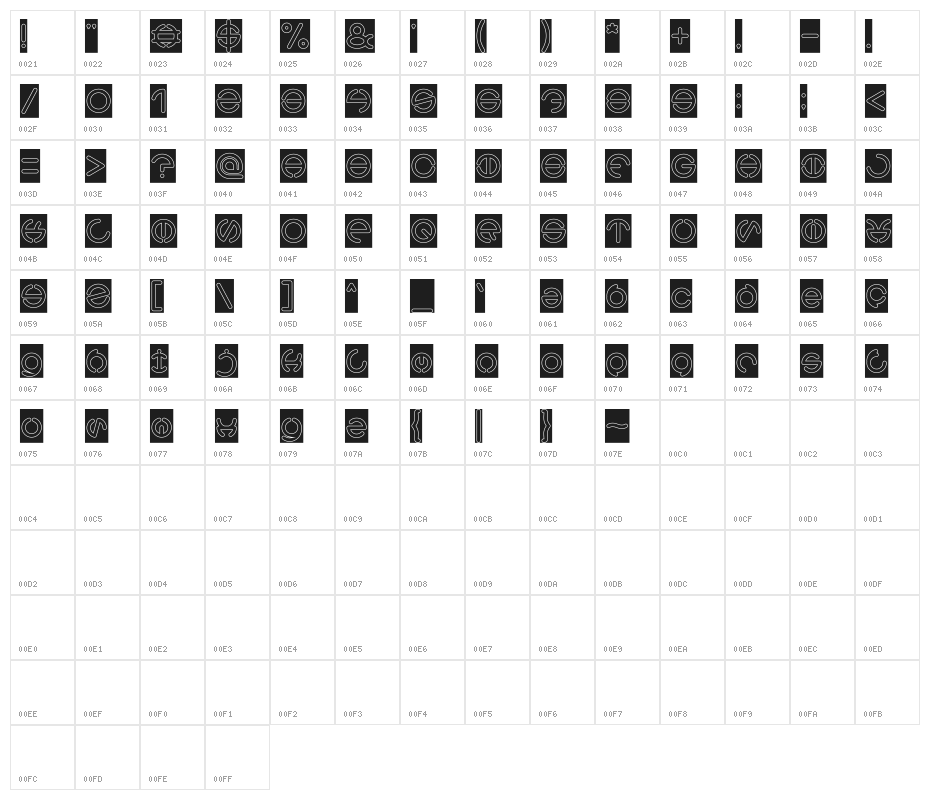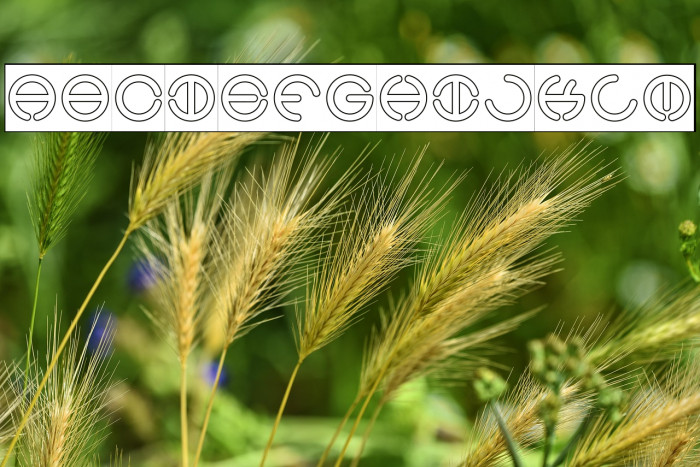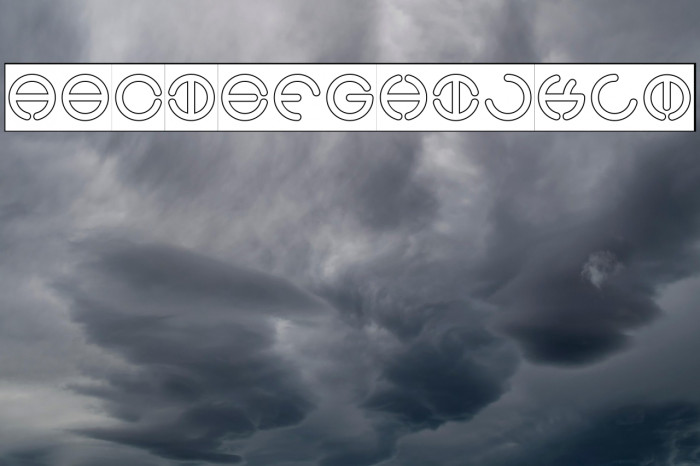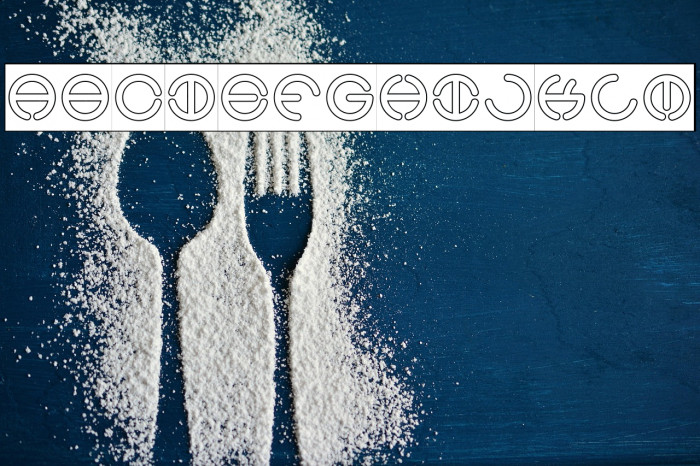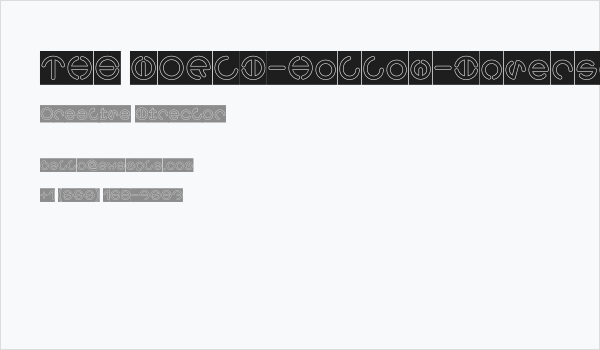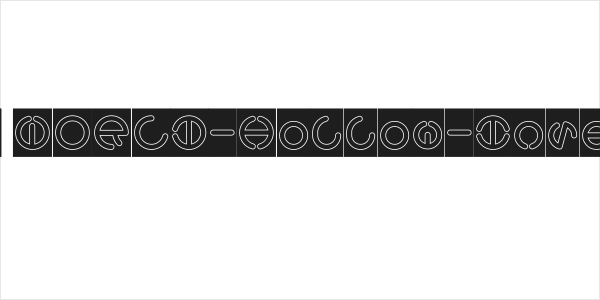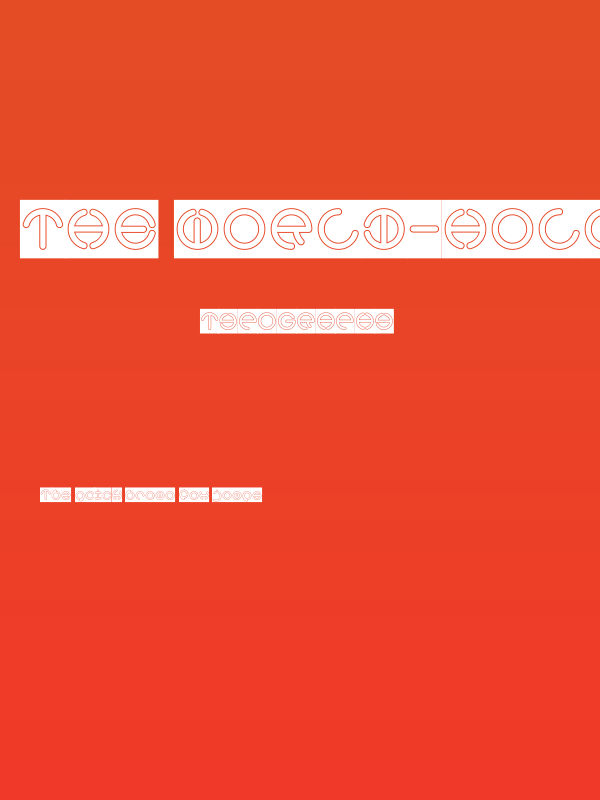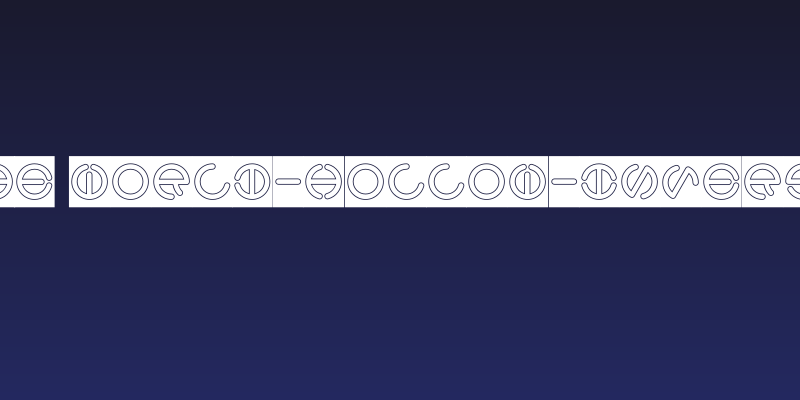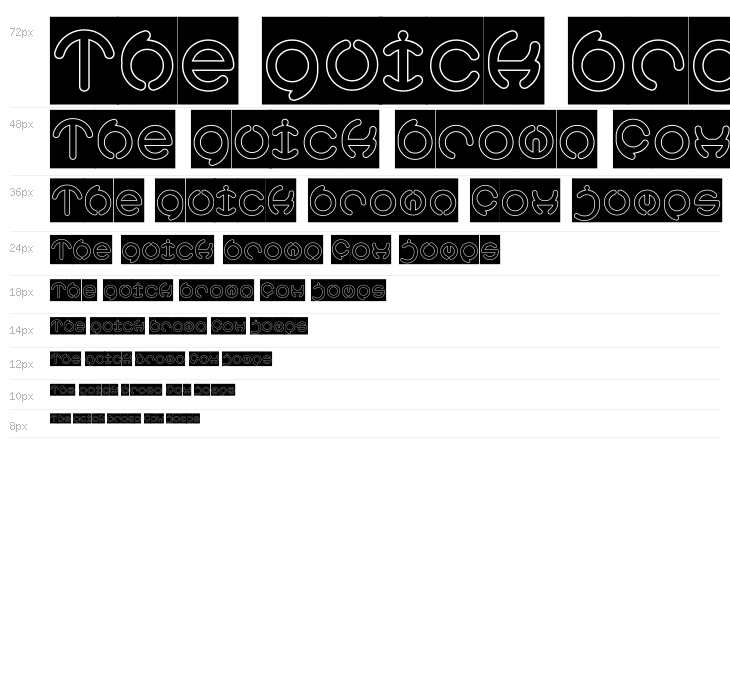
THE WORLD-Hollow-Inverse Font
THE WORLD-Hollow-Inverse Description
This font features a unique hollow design with an inverse style, where the characters are outlined with a continuous line, creating a futuristic and abstract appearance. The letters and numbers are crafted with a consistent thickness, maintaining a uniform look throughout. The style is highly decorative, making it stand out with its geometric and symmetrical forms. The special characters complement the overall design, adding to its distinctiveness. This font is ideal for creative projects that require a modern and edgy aesthetic.
| Proposed Projects | Ideal for branding, posters, album covers, and digital art projects that require a modern and unique look. |